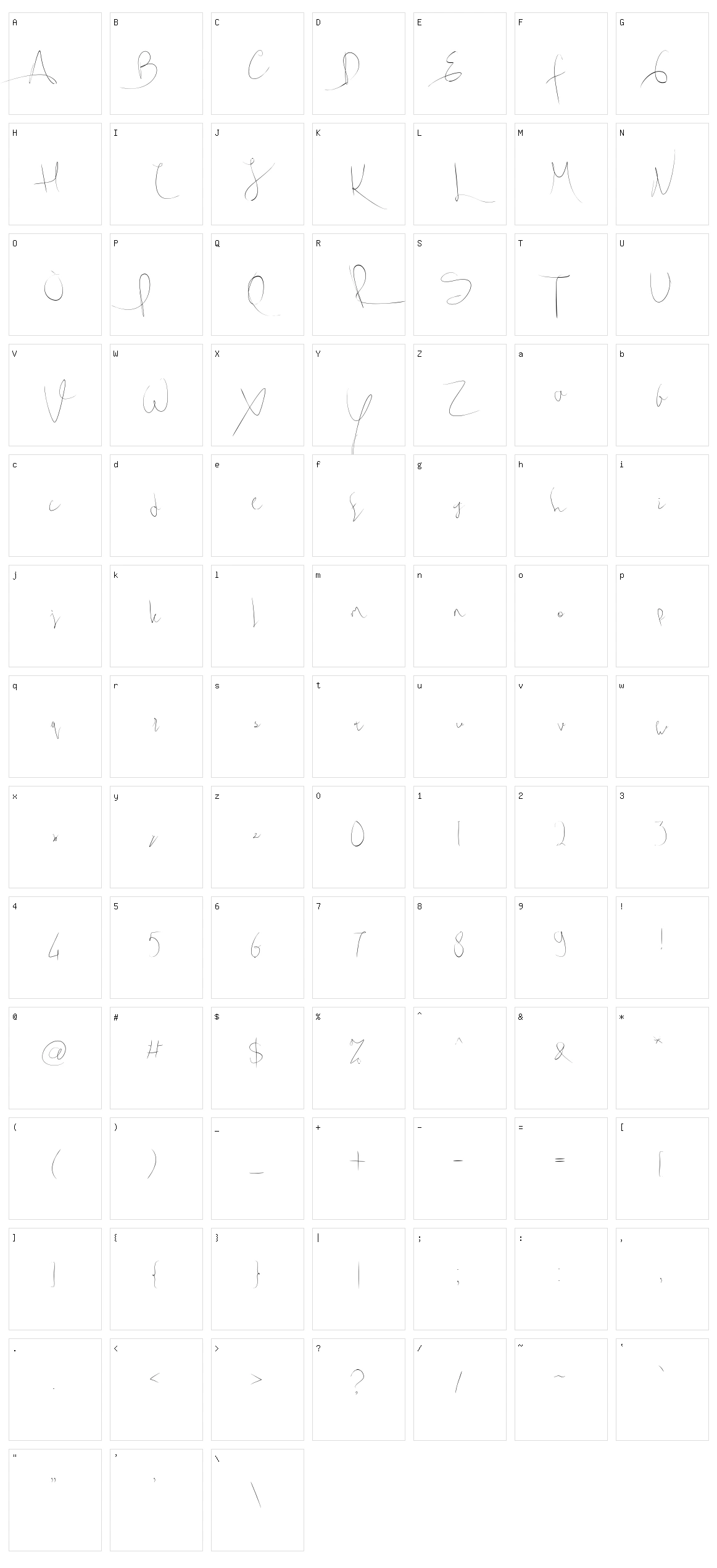
The free font Ashley Jarrow is carefully designed by Bonjour Type, showcasing a thoughtful balance of creativity and usability and falls under the Script font style. When you download the ZIP file, it contains only 45.18 KB of font files, making it lightweight and quick to download. Please review the license details below to understand permitted usage and distribution rights. If license information is not available, we recommend using this font for personal projects only or contacting the author directly for commercial usage permissions.